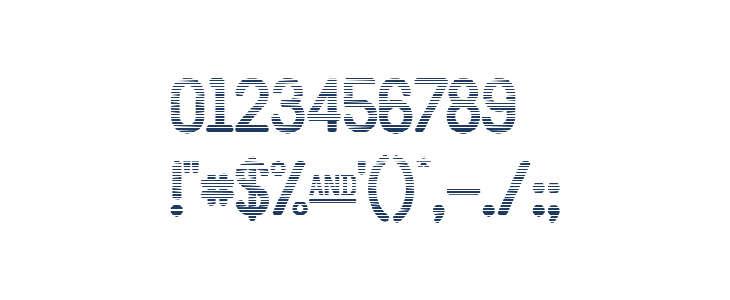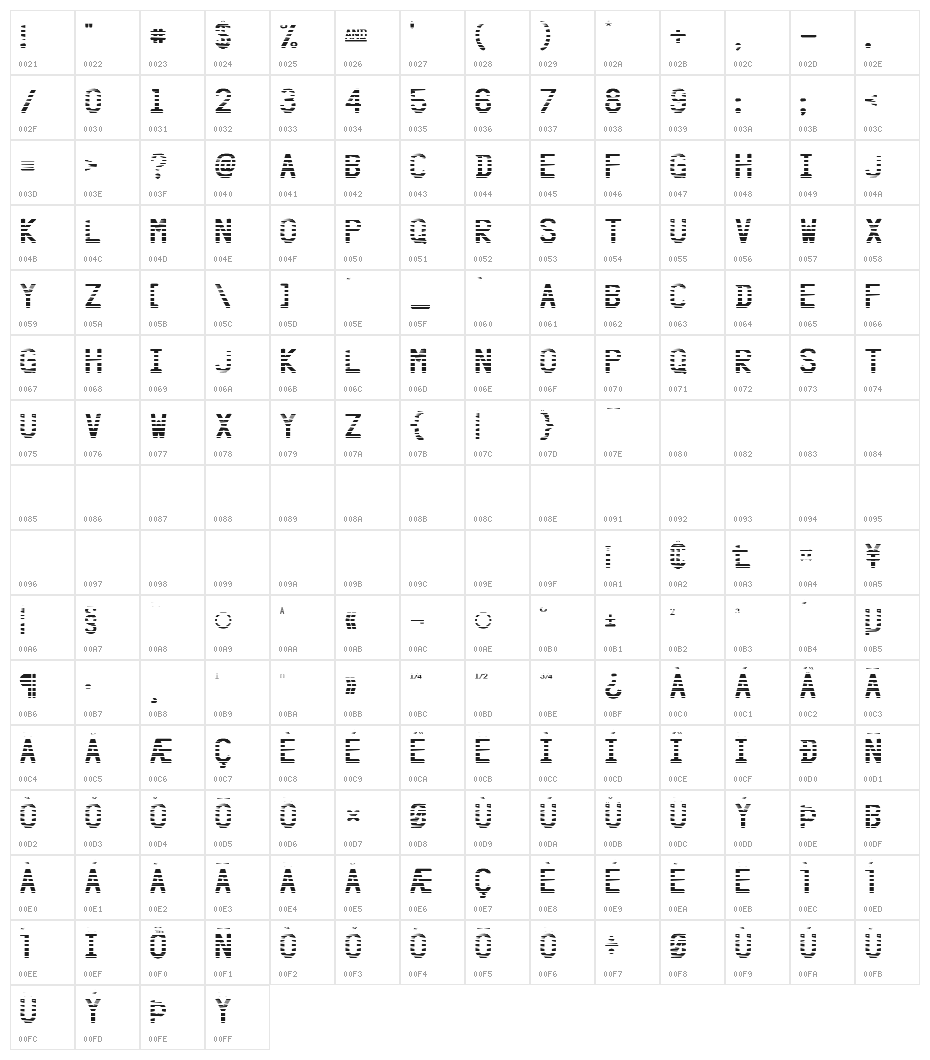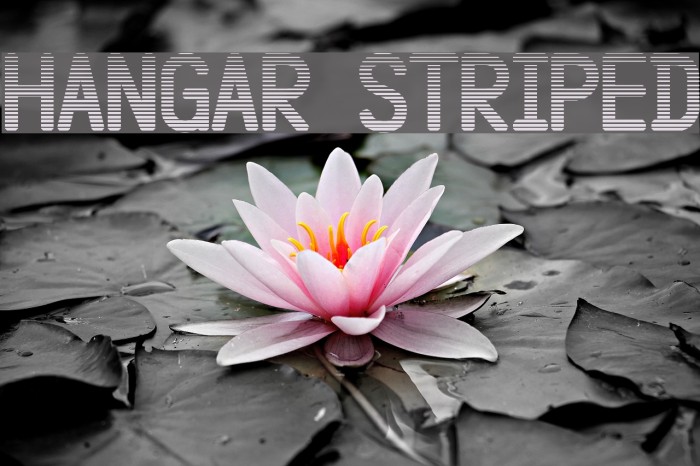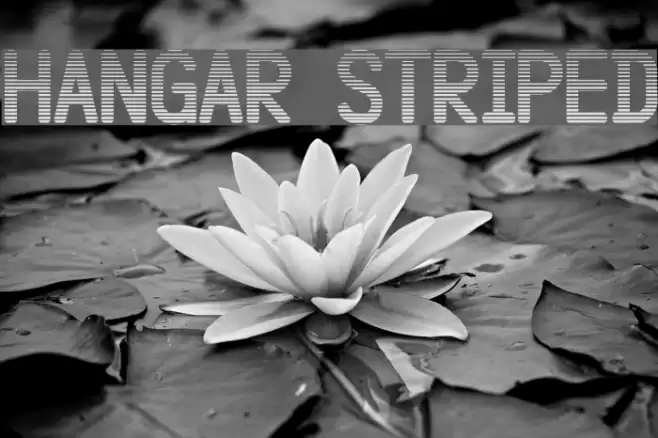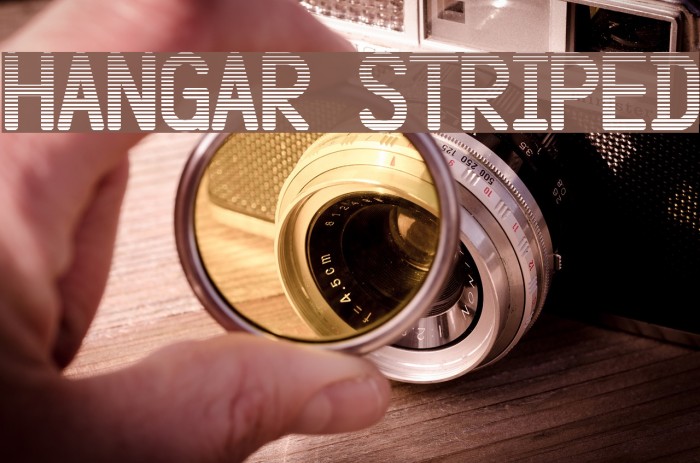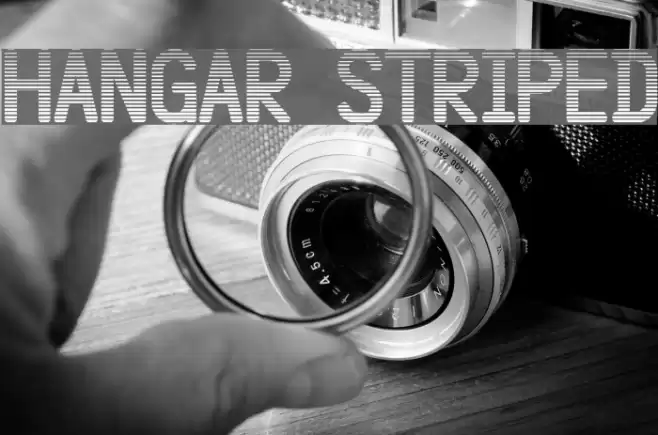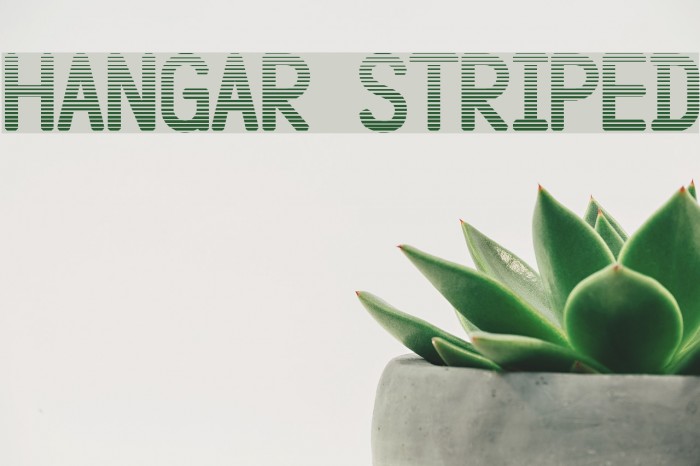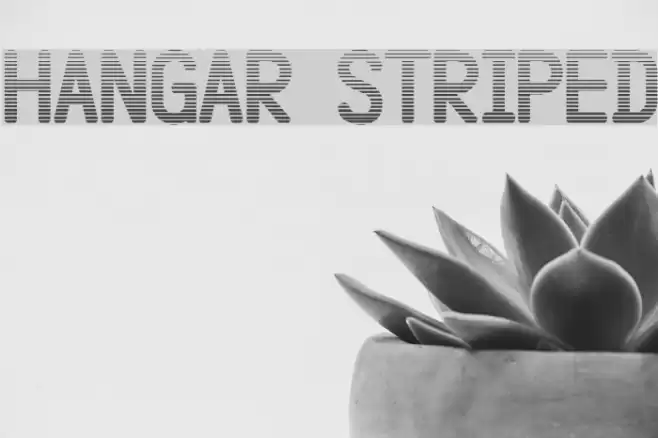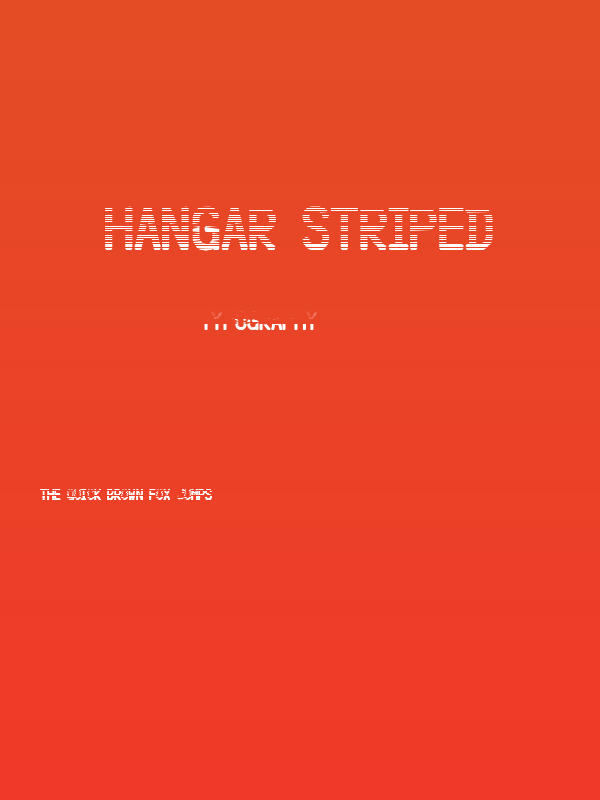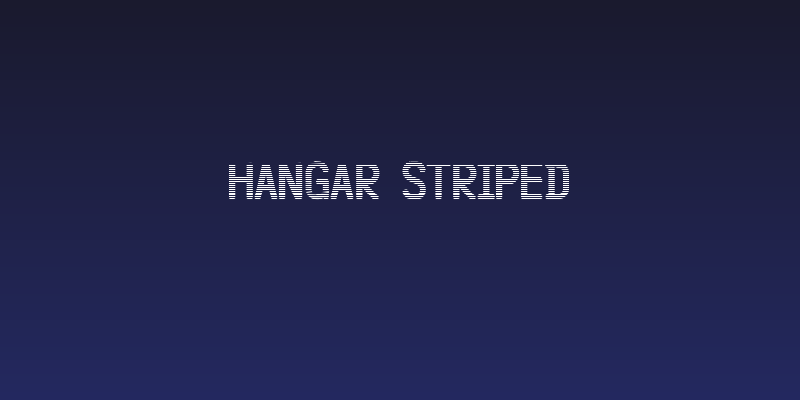
Hangar Striped Font
Hangar Striped Description
This font features a unique striped pattern across each character, creating a visually striking effect. The uppercase and lowercase letters maintain a consistent width, with horizontal lines cutting through the solid forms, giving a sense of movement and modernity. The numbers and special characters follow the same design, ensuring uniformity throughout. This style is reminiscent of industrial or mechanical themes, making it ideal for projects that require a bold and innovative look. The font's distinct appearance makes it stand out, perfect for grabbing attention.
| Proposed Projects | Ideal for branding, posters, and any design needing a modern, eye-catching typeface. |